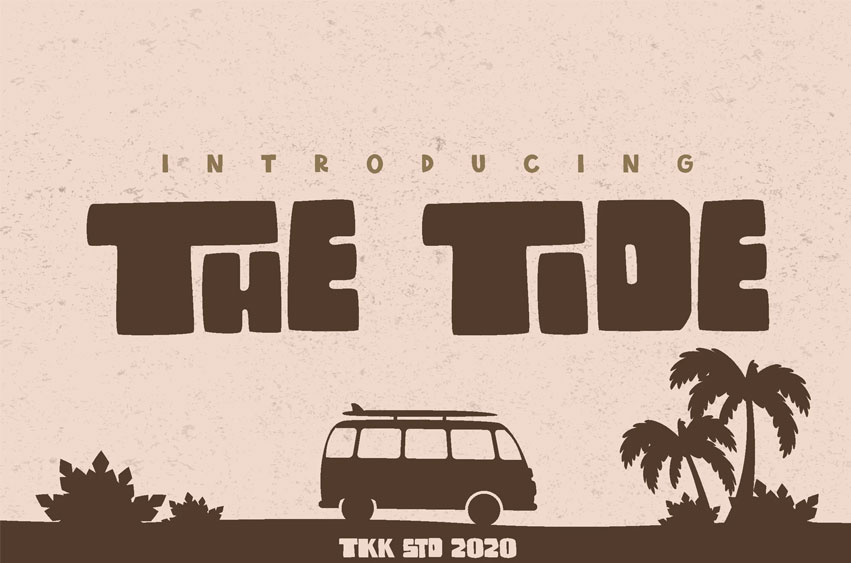
The Tide Font
The Tide Font is a vintage-inspired display font that embodies the free-spirited essence of beach life, surf culture, and retro travel aesthetics. With its warm, hand-drawn feel and nostalgic character, this font is perfect for coastal branding, surf shop signage, beachwear packaging, and laid-back social media promotions.
Inspired by sun-soaked road trips, seaside adventures, and 70s surf posters, THE TIDE brings a relaxed yet stylish personality to your designs. Whether you’re crafting summer festival posters, travel postcards, or retro-themed branding, this font ensures your message flows effortlessly like the ocean breeze.
Why Choose THE TIDE?
• Retro Coastal Aesthetic – A perfect blend of vintage charm and beach-inspired style.
• Great for Surf & Travel Branding – Ideal for surf shops, beach resorts, and summer apparel.
• Warm & Laid-Back Feel – Adds an effortless, sun-kissed personality to designs.
• Versatile for Digital & Print – Works beautifully on posters, labels, and lifestyle brands.
• Evokes Nostalgia & Adventure – Captures the essence of endless summers and coastal road trips.
Ride the wave of creativity with THE TIDE – your go-to font for sun, sand, and style.